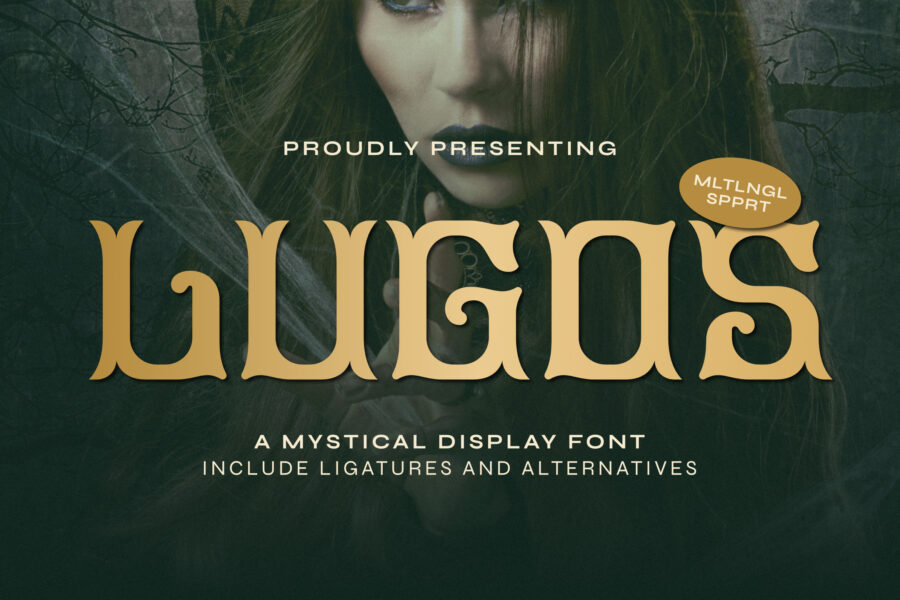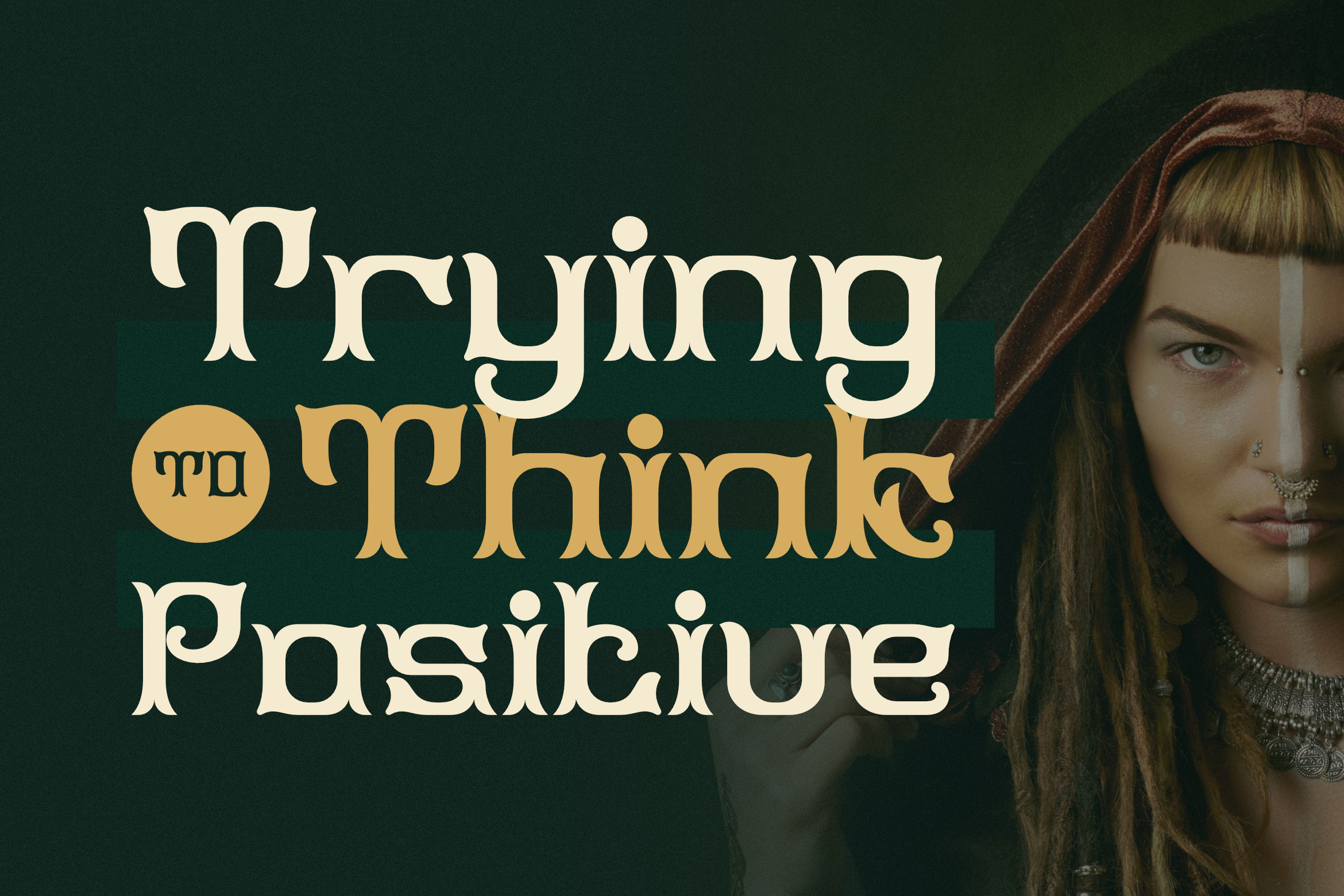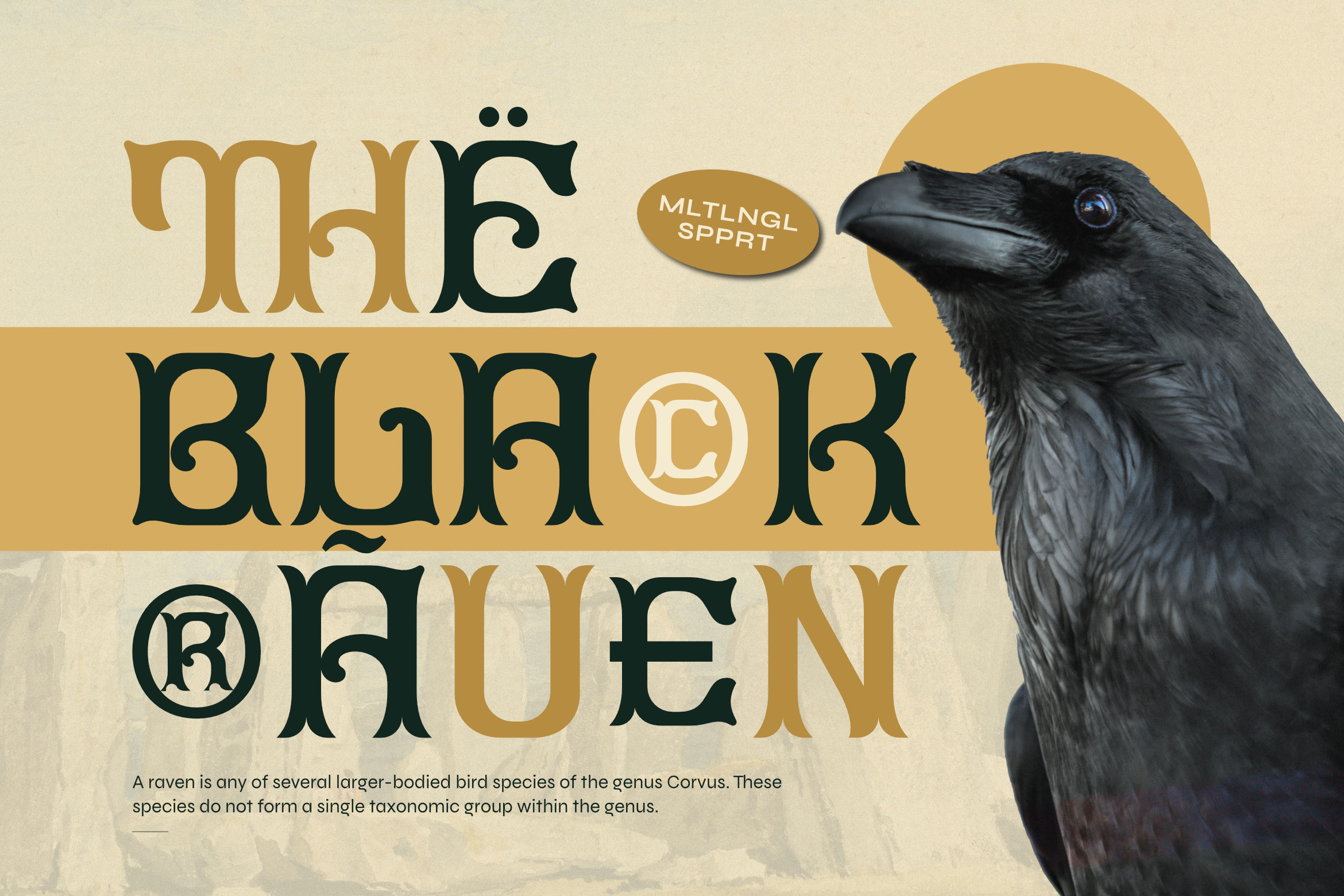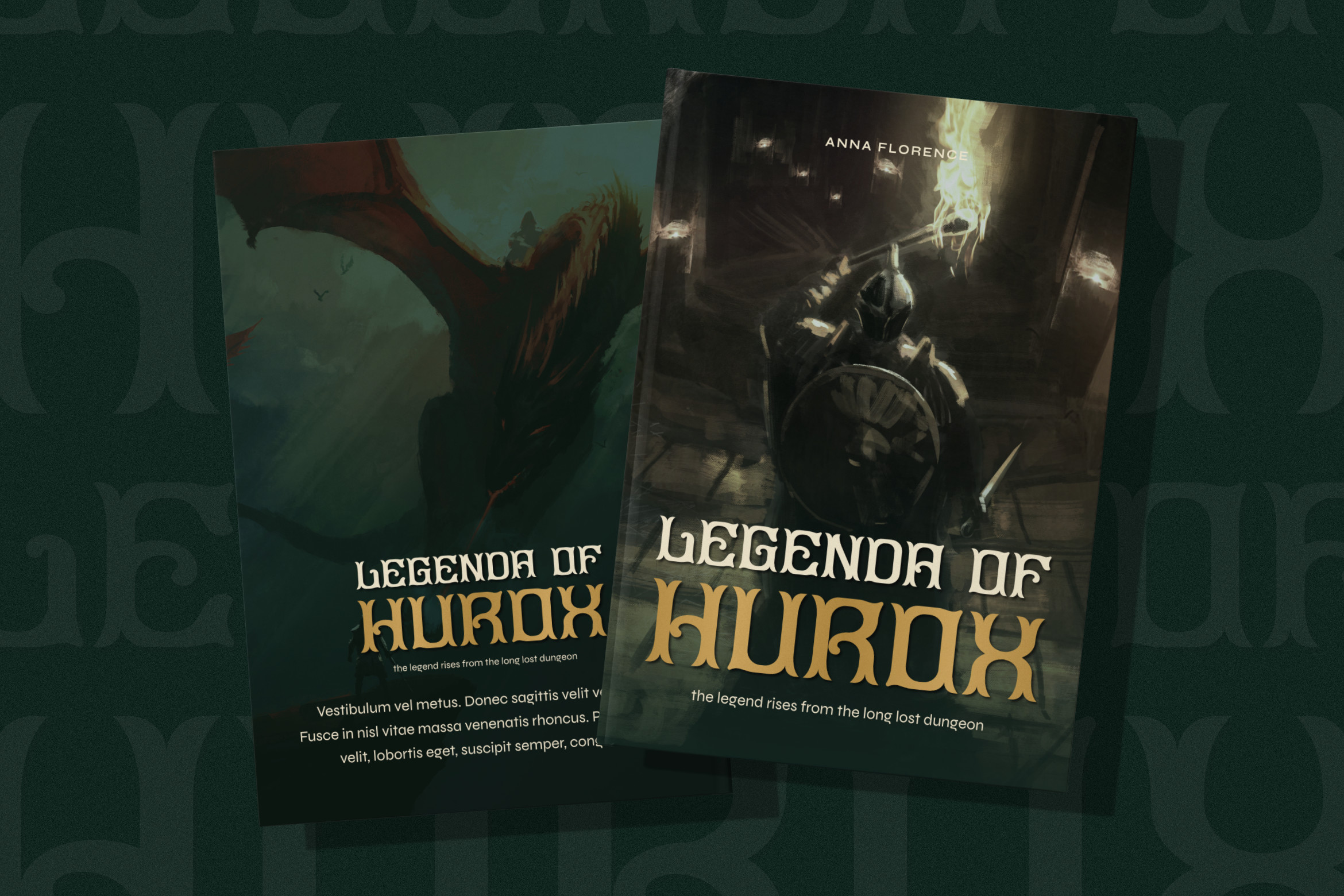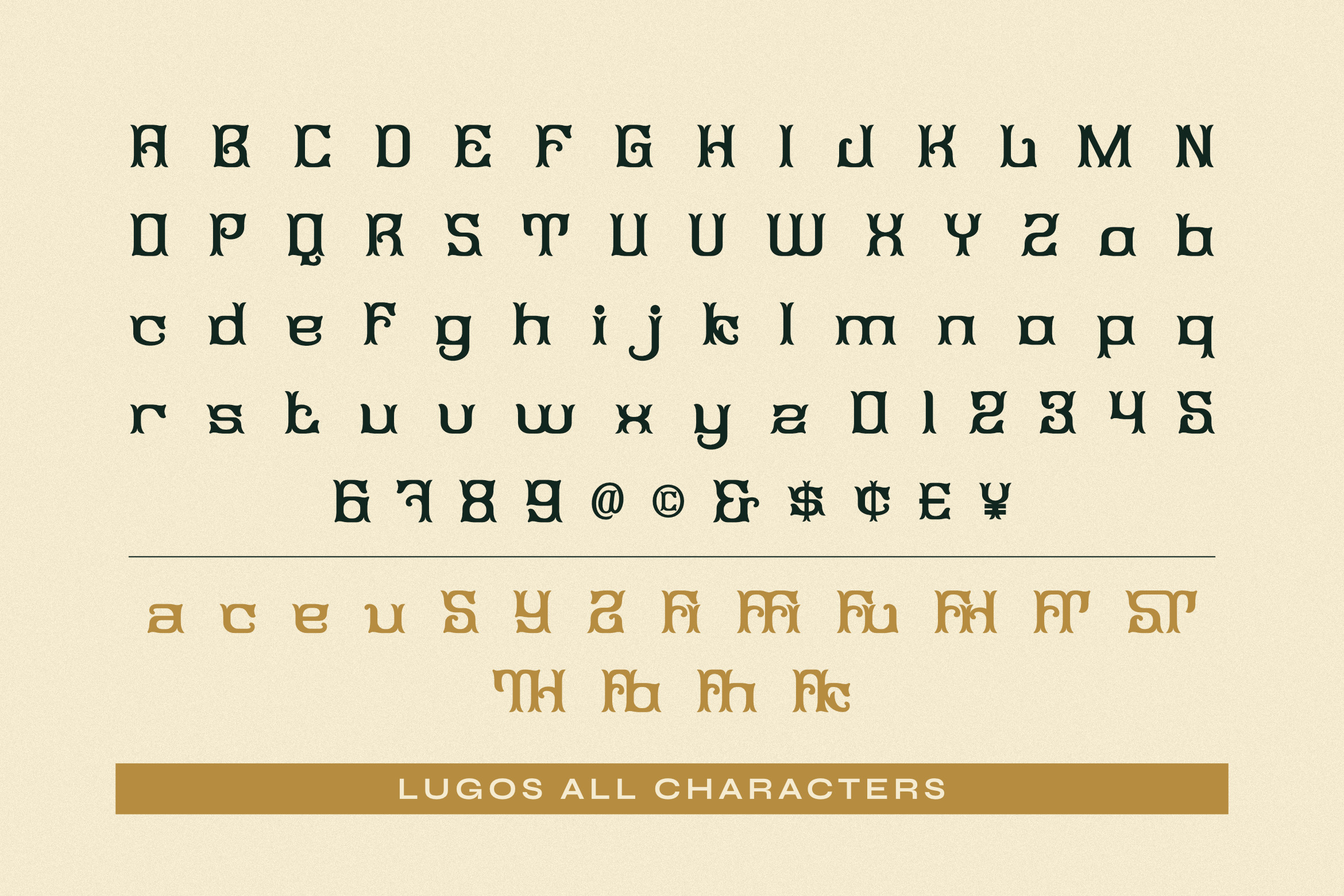
Lugos is a mystical display font inspired by gothic curves and medieval elegance, designed to bring a bold yet magical feel to any visual project. Its unique combination of sharp serifs, unusual terminals, and alternative characters makes it perfect for fantasy book covers, occult-themed branding, dark editorial layouts, or video game titles. The font balances readability with intricate detail, creating a sense of ancient power and mysterious storytelling.
With multilingual support, stylistic alternates, and ligatures included, Lugos offers versatility for designers who want to experiment with type and tone. Whether used in uppercase for striking headlines or in lowercase for decorative texts, Lugos transforms your typography into a ritualistic experience. It’s especially well-suited for use in folklore, horror, fantasy fiction, or music-related designs that embrace the arcane and the dramatic.